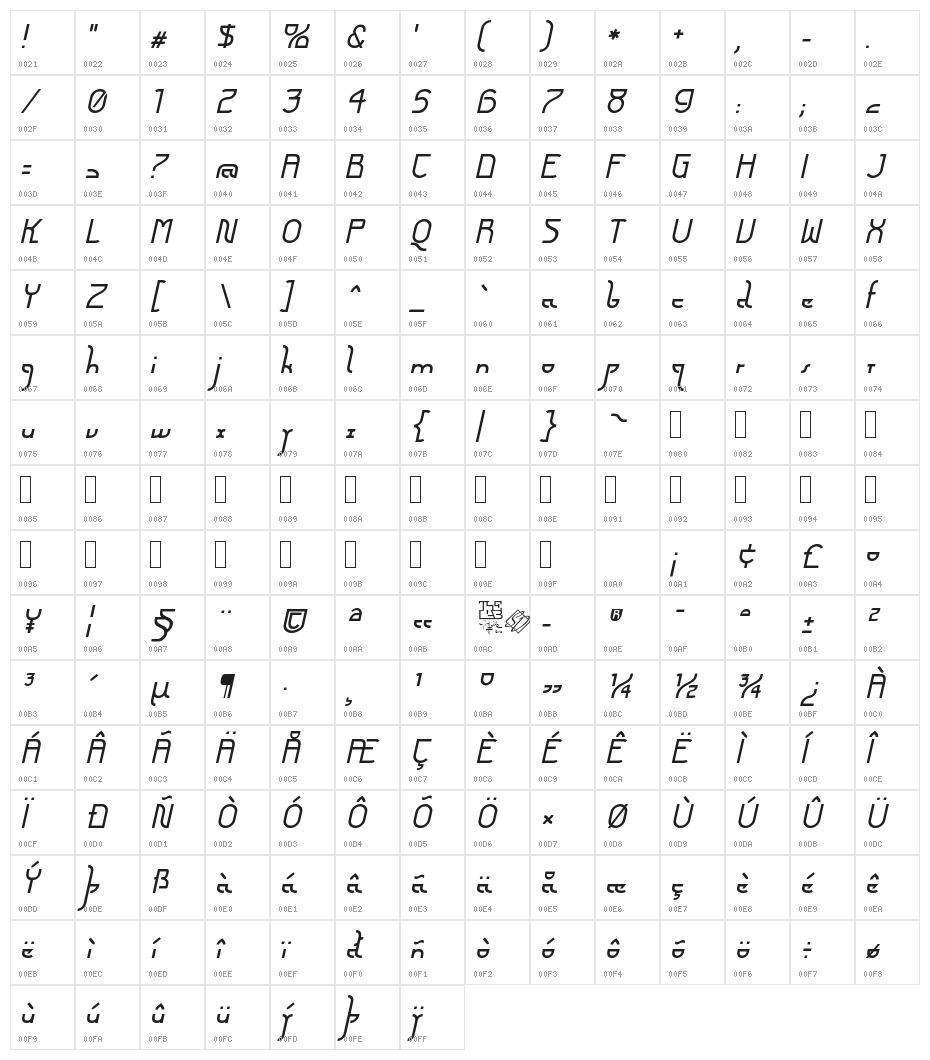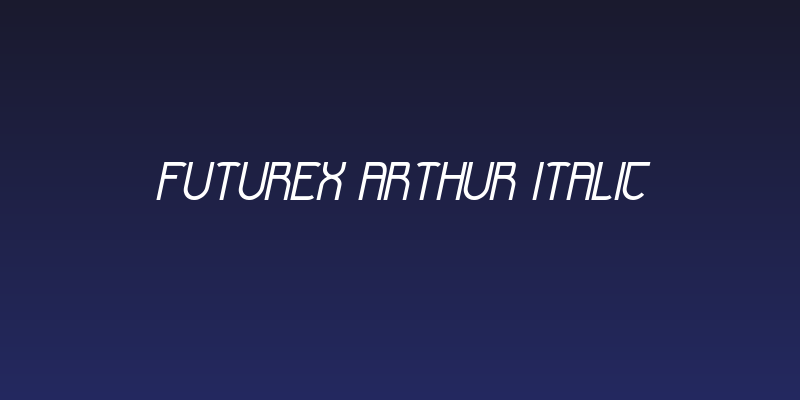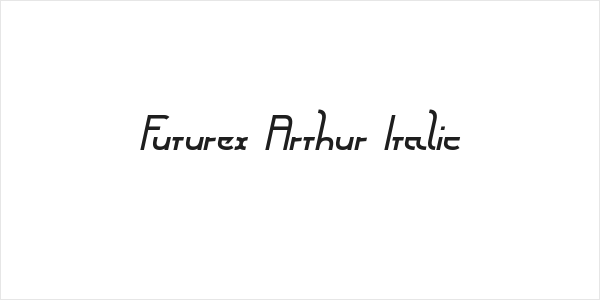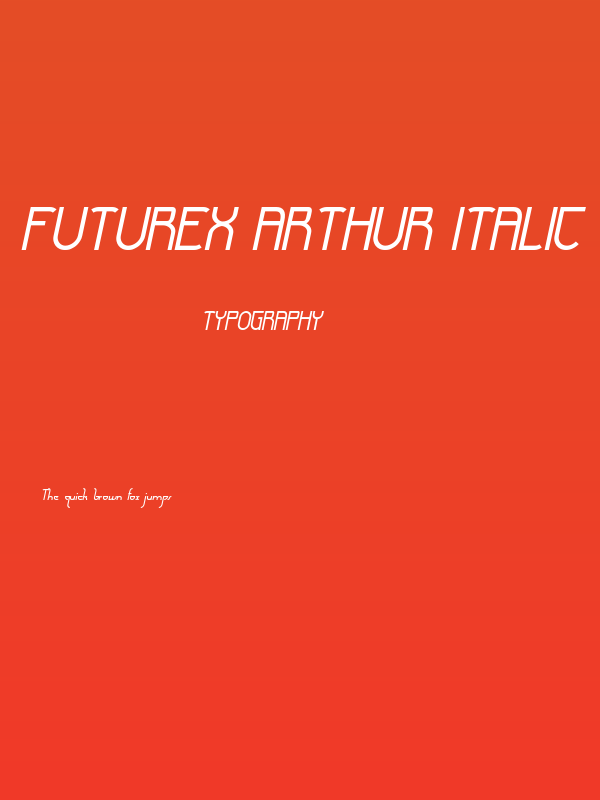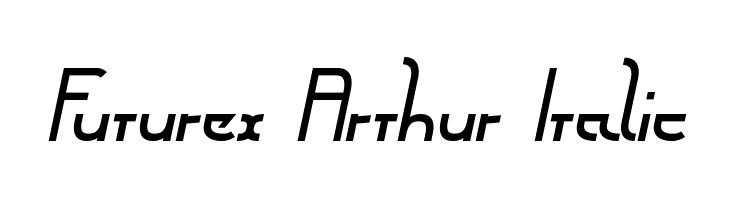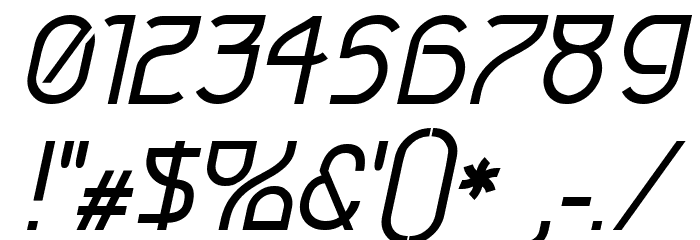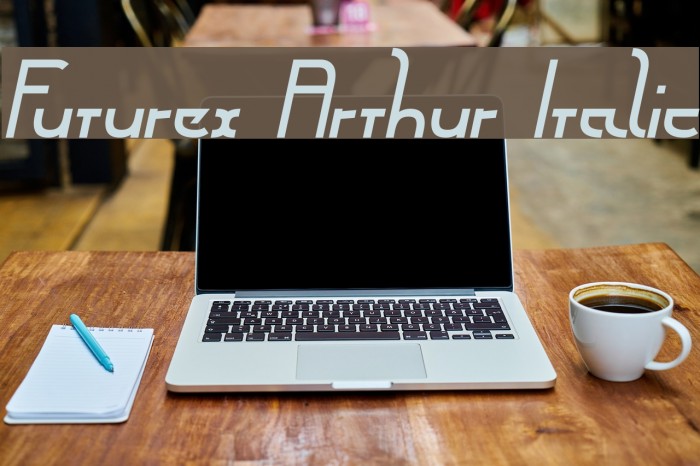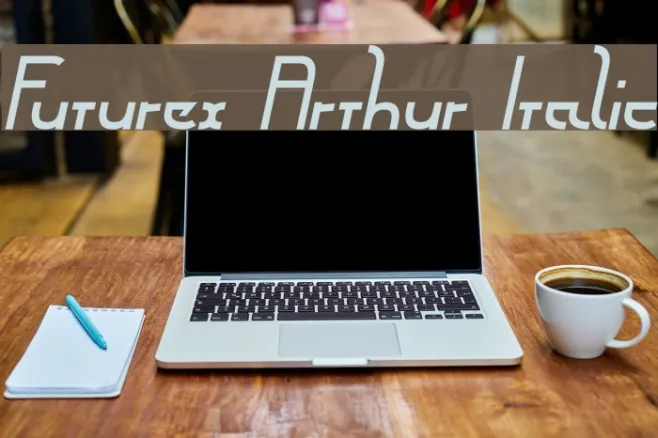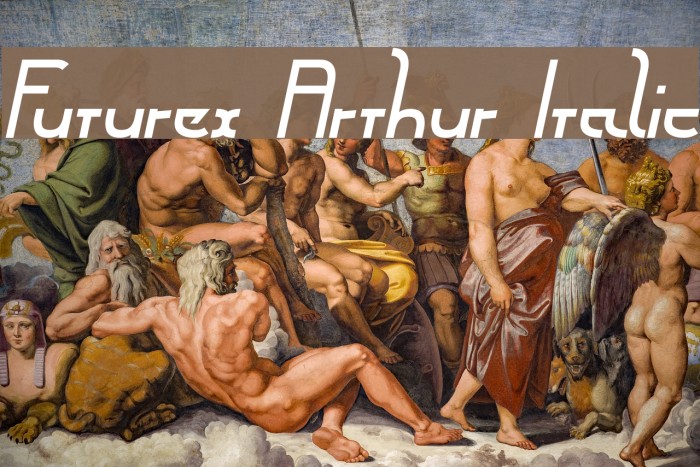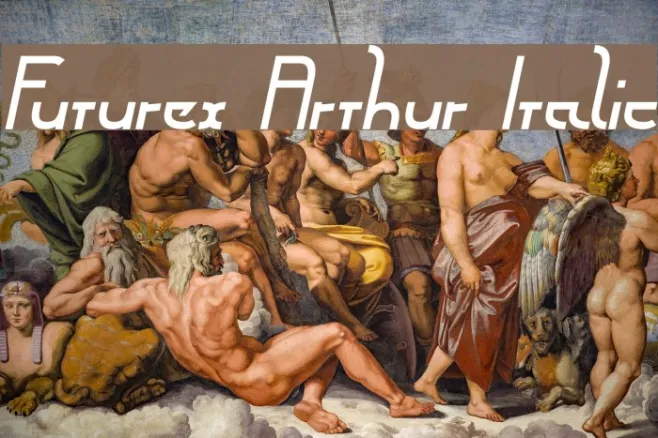
Futurex Arthur Italic Font
Futurex Arthur Italic Description
This font features a futuristic and dynamic design with a distinct italic slant, giving it a sense of motion and modernity. The characters are elongated with sharp angles and clean lines, creating a sleek and sophisticated appearance. The uppercase letters are bold and commanding, while the lowercase letters maintain a consistent style with a slightly more playful touch. Numbers and special characters are crafted to match the overall aesthetic, ensuring a cohesive look across all text elements. The font's unique style makes it stand out, ideal for projects that require a contemporary and innovative feel.
| Overall Style | Futuristic |
| Use Case | Logos, Headlines, Posters |
| Proposed Projects | Ideal for tech branding, sci-fi posters, modern logos, and digital interfaces. |